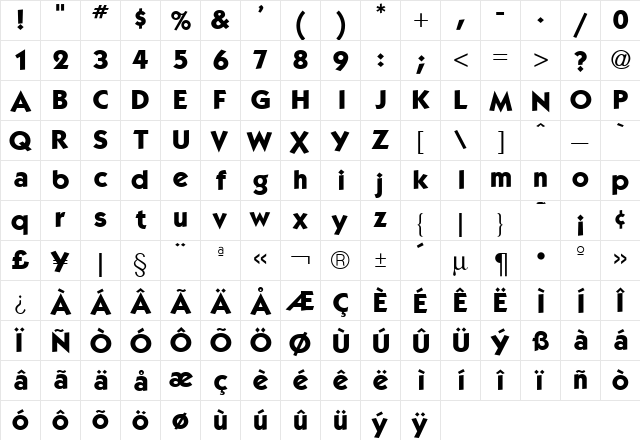
KabanaBold Regular
Design Context for KabanaBold Typeface
KabanaBold takes a measured approach to typography — its balanced proportions and neutral character make it a reliable workhorse for both digital and print work. The heavy weight commands attention and anchors typographic hierarchies.